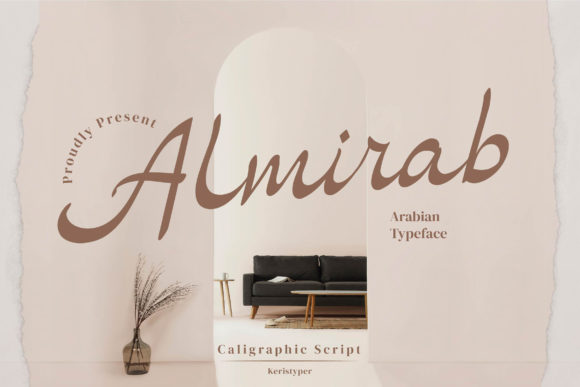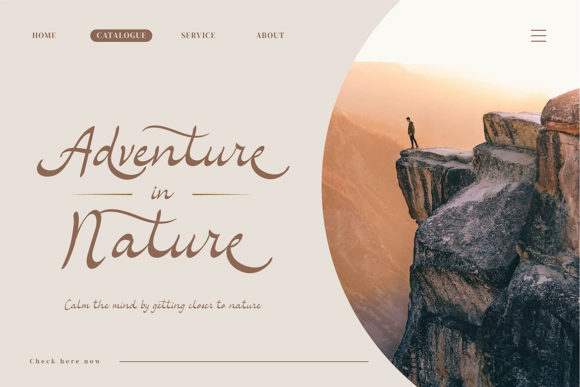
About Almirab Font
Almirab Script is a timeless script font inspired by the classic handwriting of Arabic tradition, employing a flat pen (or signature pen) and characterized by the low height of letterforms. This font stands out as an excellent choice for a variety of applications, showcasing its versatility and classic appeal.
The script’s design, influenced by Arabic handwriting, adds a touch of cultural richness to your projects. Almirab Script is particularly well-suited for logo design, where it brings an air of tradition and elegance. Additionally, it proves effective in various applications, including social media graphics, movie titles, book titles, and both short and long text passages.
The flat pen-inspired strokes contribute to the script’s classic aesthetic, creating a visual harmony that is both pleasing and sophisticated. Almirab Script not only serves as a primary text font but also excels as a secondary font when paired with sans-serif or serif typefaces. This versatility allows you to create visually appealing and well-balanced designs.
Whether you’re crafting a brand identity, designing titles for different media, or incorporating text into various layouts, Almirab Script provides a unique and distinguished look. Its classic charm makes it suitable for projects that require a timeless quality, while its adaptability allows it to seamlessly integrate into contemporary design contexts.
In summary, Almirab Script is more than a font; it’s a classic design element that pays homage to Arabic handwriting traditions. Elevate your projects with this font, whether you’re working on logos, social media graphics, movie or book titles, or any design that calls for a touch of timeless elegance and cultural influence.